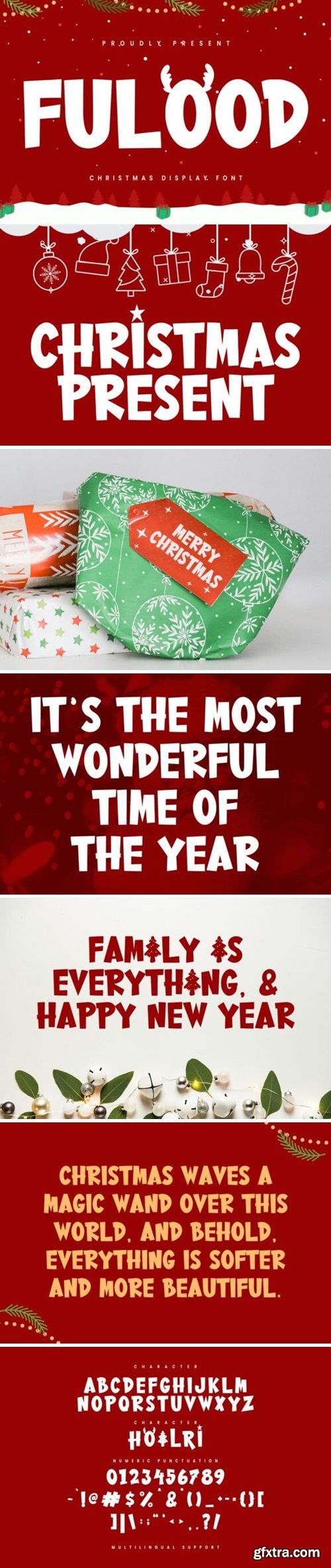
Fulood is a fun and festive display font perfect for Christmas designs. It features bold, playful letters with a holiday-inspired style, making it ideal for decorations, cards, and posters. Its cheerful look adds a warm, festive touch to any Christmas project!